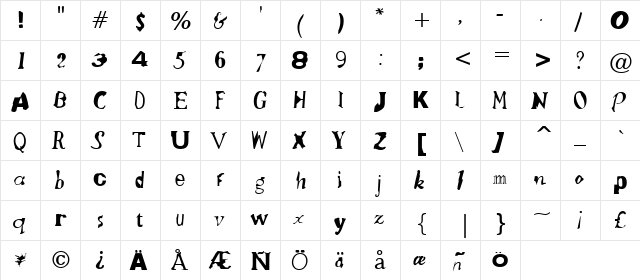
Mongrel 5 Regular
Design Context for Mongrel 5 Typeface
Mongrel 5 is a composed and adaptable typeface that performs quietly and consistently across a wide range of design contexts.